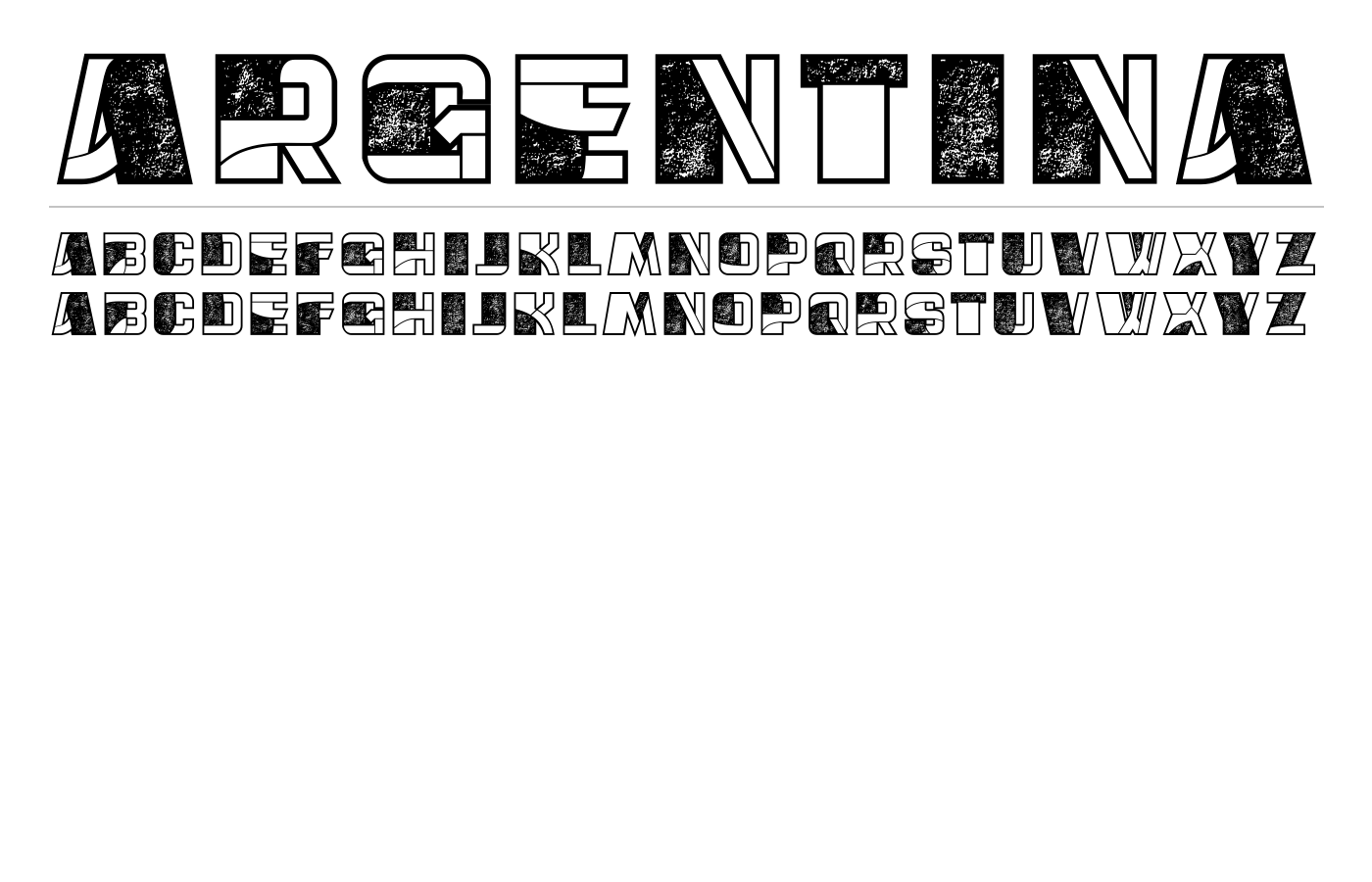
Argentina Font is a bold and decorative sans serif typeface with a strong geometric structure and a distinctive distressed texture that adds a rugged, vintage feel. Its uppercase-only design features sharp angles and creative internal cutouts, making it perfect for eye-catching headlines, logos, and posters that aim to convey a mix of industrial strength and artistic flair. This font works best in designs that want to stand out with a unique, dynamic personality while maintaining clean readability.
Argentina Font
About Argentina Font